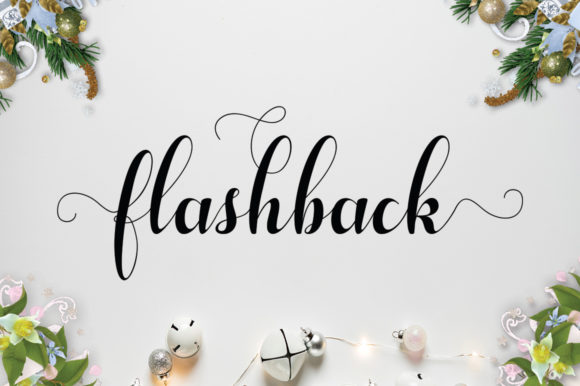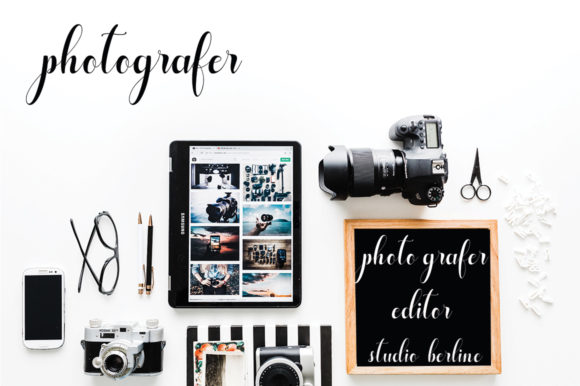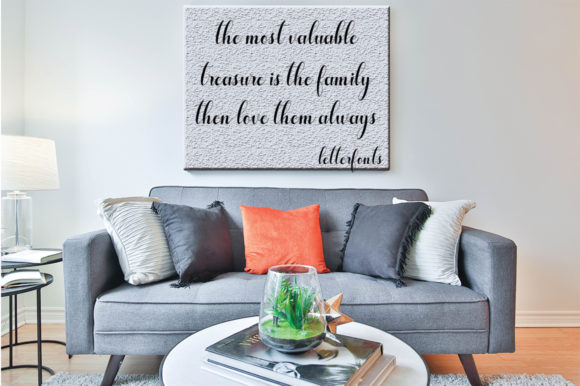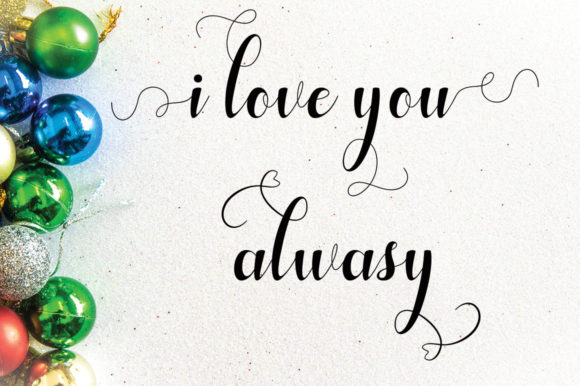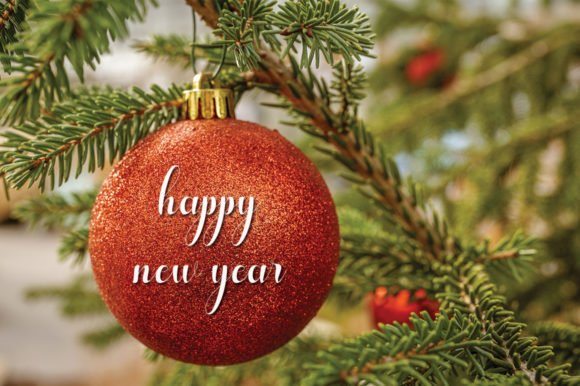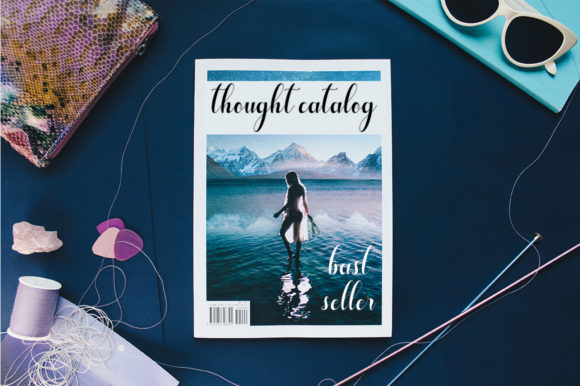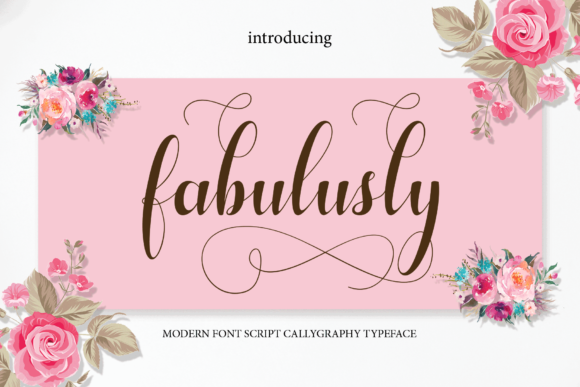
Introducing Fabulusly Font: The Ultimate Calligraphy Companion for Designers and Crafters
Are you on the hunt for a font that embodies the perfect blend of romance, playfulness, and charm? Look no further than Fabulusly Font, a joyful and modern calligraphy font designed to elevate your crafting projects to new heights. With its incredibly romantic flow, bouncy and beautiful strokes, and flexible design, this font is highly recommended for wedding crafts, DIY projects, and any creative endeavor that requires a sweet, playful, and charming feel.
A Font that Exudes Romance and Whimsy
Fabulusly Font boasts a unique appeal that is sure to inspire your creativity. Its elegant, cursive script features a delightful mix of flourishes and swashes, making it perfect for a variety of applications, from wedding invitations and stationery to craft projects and digital designs. Whether you’re a designer, crafter, or DIY enthusiast, this font is sure to become your go-to companion for creating beautiful, one-of-a-kind projects.
What Makes Fabulusly Font So Special?
So, what sets Fabulusly Font apart from other calligraphy fonts on the market? Here are just a few of its standout features:
- PUA Encoding: Fabulusly Font is PUA encoded, which means you can access all of the gorgeous glyphs and swashes with ease. This makes it simple to customize your projects and add your own personal touch.
- Alternate Glyphs and Ligatures: This font features a wealth of special features, including alternate glyphs and ligatures. These allow you to add an extra layer of creativity and sophistication to your projects.
- Flexibility and Versatility: Fabulusly Font is designed to be flexible and versatile, making it suitable for a wide range of applications, from digital designs to print projects.
Perfect for Wedding Crafts and DIY Projects
Fabulusly Font is an ideal choice for wedding crafts and DIY projects. Its romantic and whimsical design makes it perfect for:
- Wedding Invitations: Create beautiful, one-of-a-kind wedding invitations that set the tone for your special day.
- Stationery and Paper Crafts: Add a touch of elegance and sophistication to your stationery and paper crafts with this gorgeous font.
- Craft Projects: From scrapbooking to card making, Fabulusly Font is the perfect companion for any craft project that requires a sweet, playful, and charming feel.
Why Designers and Crafters Love Fabulusly Font
So, why do designers and crafters love Fabulusly Font? Here are just a few reasons:
- Easy to Use: With its PUA encoding and intuitive design, Fabulusly Font is easy to use, even for those with limited design experience.
- High-Quality Design: This font is designed to deliver high-quality results, with crisp, clear lines and a beautiful, elegant script.
- Unique and Versatile: Fabulusly Font is a one-of-a-kind script that can be used in a variety of applications, from digital designs to print projects.
Get Inspired by Fabulusly Font
- Experiment with Different Styles: Don’t be afraid to try out different styles and combinations of glyphs and swashes to create a unique look.
- Pair it with Other Fonts: Fabulusly Font pairs beautifully with other fonts, so don’t be afraid to experiment with different combinations.
- Use it for Digital Designs: This font is perfect for digital designs, from social media graphics to blog posts and more.